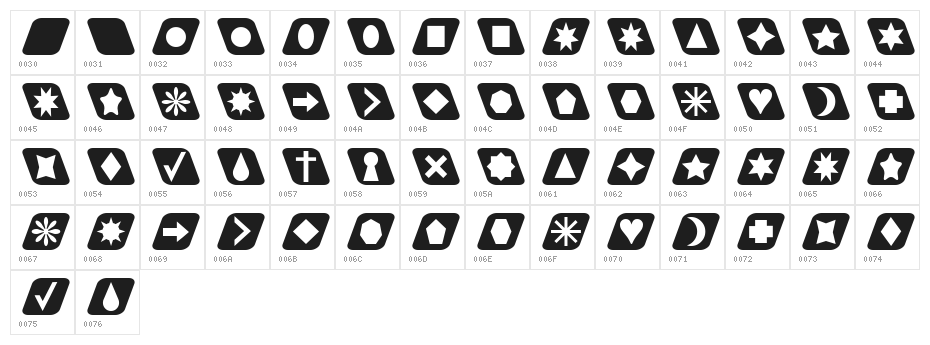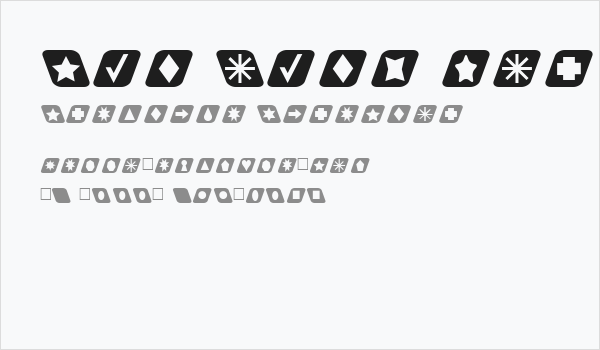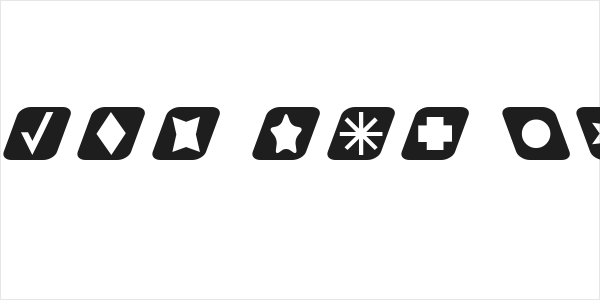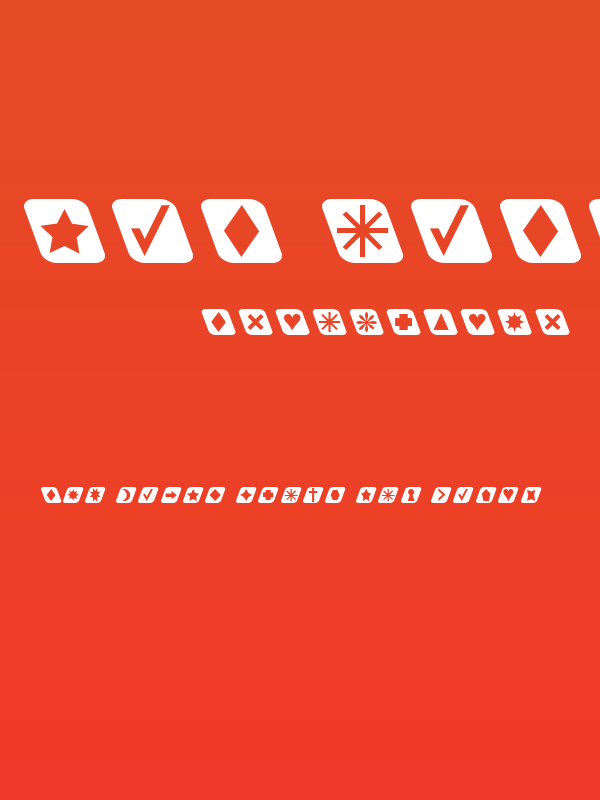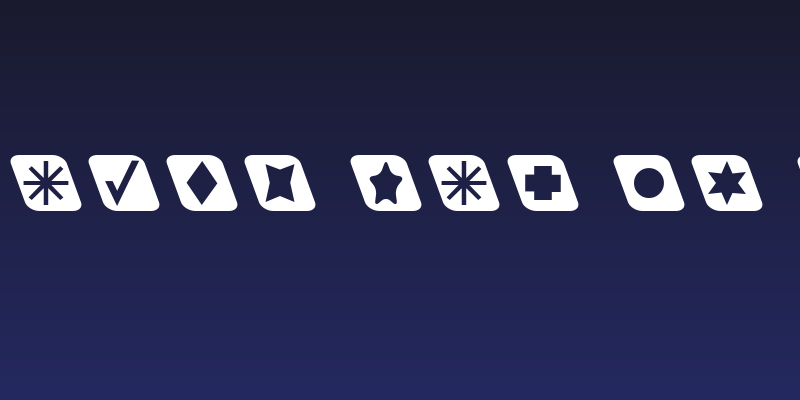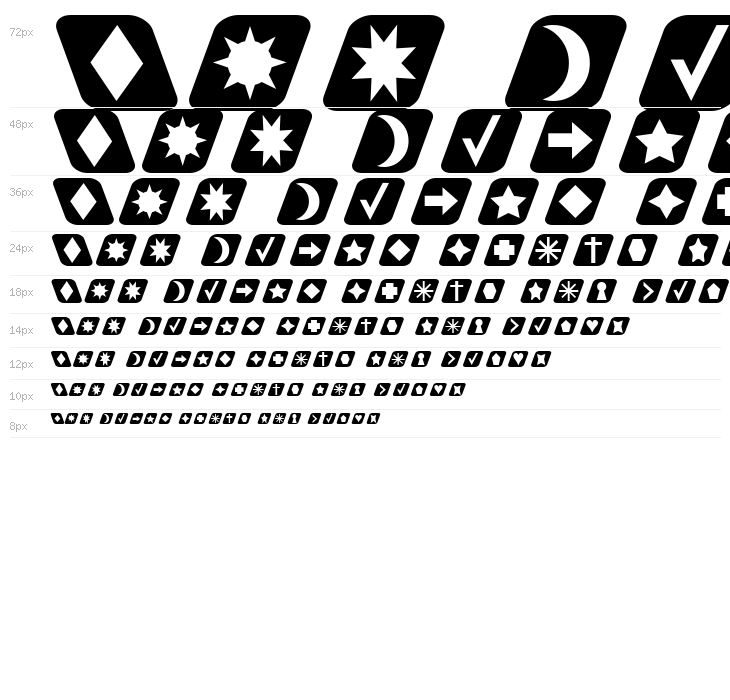
Cut Outs for 3D FX 2 Font
Cut Outs for 3D FX 2 Description
This set of symbols features a variety of bold, geometric shapes enclosed within tilted squares. The designs include stars, arrows, hearts, and other abstract forms, each with a distinct silhouette that stands out due to the high contrast between the black shapes and the white background. The consistent use of a tilted square as a framing device gives the collection a cohesive look, while the diversity of the symbols allows for versatile applications. These symbols are ideal for creating eye-catching graphics or adding a playful, modern touch to digital designs.
| Use Case | Logos, Icons, Decorative elements |
| Proposed Projects | Ideal for digital graphics, icons, logos, and playful design elements. |